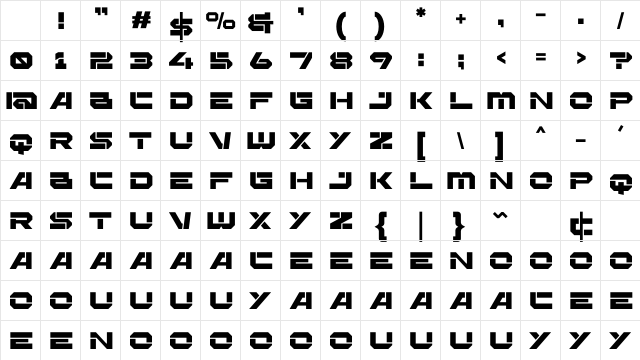
Complete Gober Regular glyph index. Displaying only characters natively supported by Gober Regular font.
Gober is a composed and adaptable typeface that performs quietly and consistently across a wide range of design contexts.